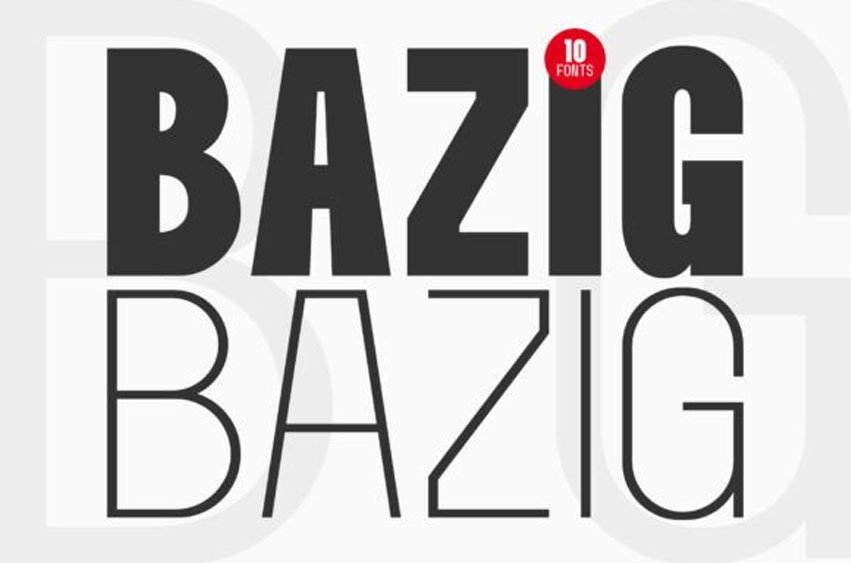
Bazig Font
Bazig Font is a modern sans-serif typeface family with a clean, elegant, and versatile look. It comes in styles from Thin to Bold, complete with Italic versions, giving you full flexibility for any design project.
Designed with a perfect balance between sharp lines and minimalist forms, Bazig is ideal for both professional and creative use, such as business cards, websites, logos, invitations, and so much more.